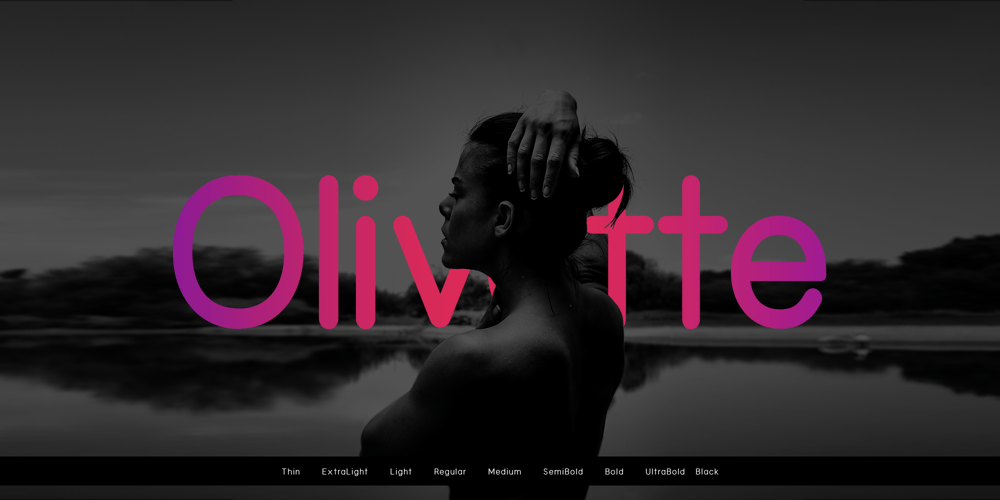
Olivette Sans Font Family was designed by Ancy George and published by VistaType. Olivette Sans contains 18 styles and family package options. Introducing Olivette Sans. Olivette is a Clean and elegant typeface, best suitable for display headings, logos, branding, magazines, product packaging and invitations. Olivette is created in 02 styles and 09 weights. It has 18 fonts including true italics. Olivette is perfectly crafted for a wide variety of projects, such as signature, stationery, logo, wedding, typography quotes, magazine or book cover, website header, clothing, branding, packaging design and more. 18 fonts total 2 font styles Upper / lowercase glyphs Multilanguage Support Webfonts included Free updates and feature additions We really hope you enjoy it – please do let us know what you think, comments & likes are always hugely welcomed and appreciated. More importantly, please don’t hesitate to drop me a message if you have any issues or queries.